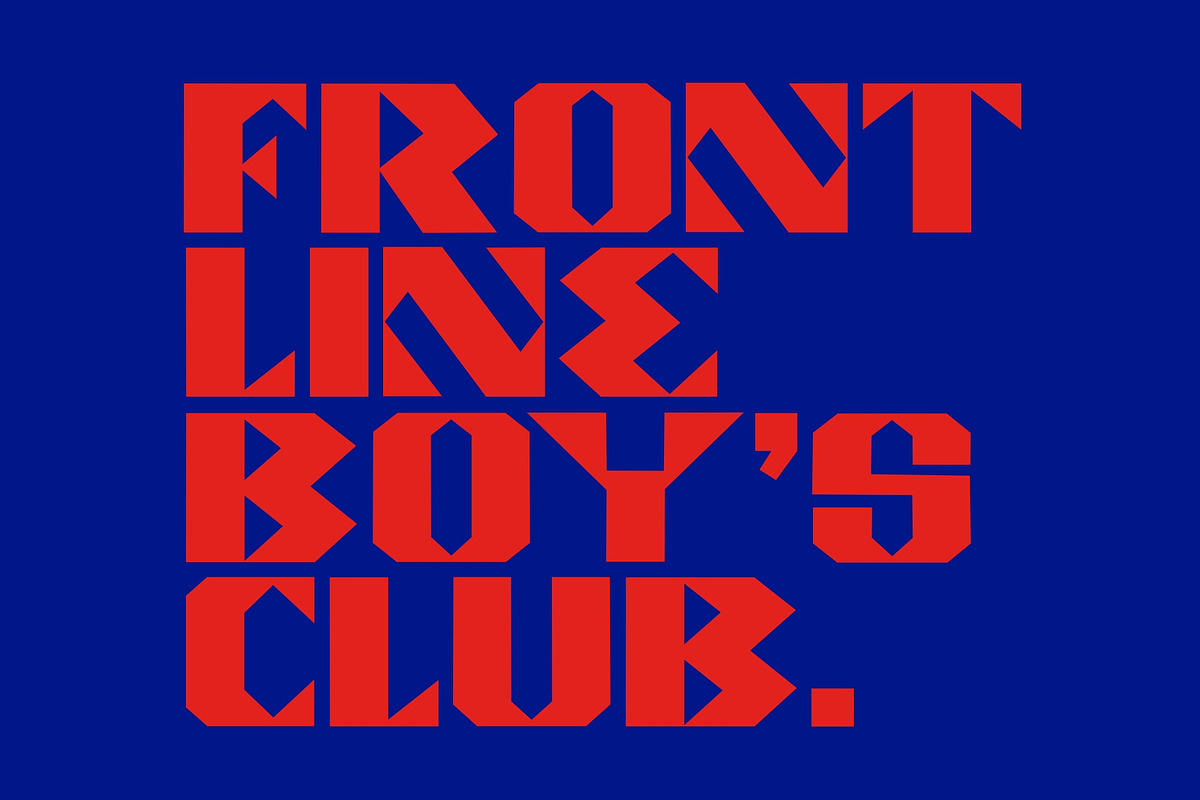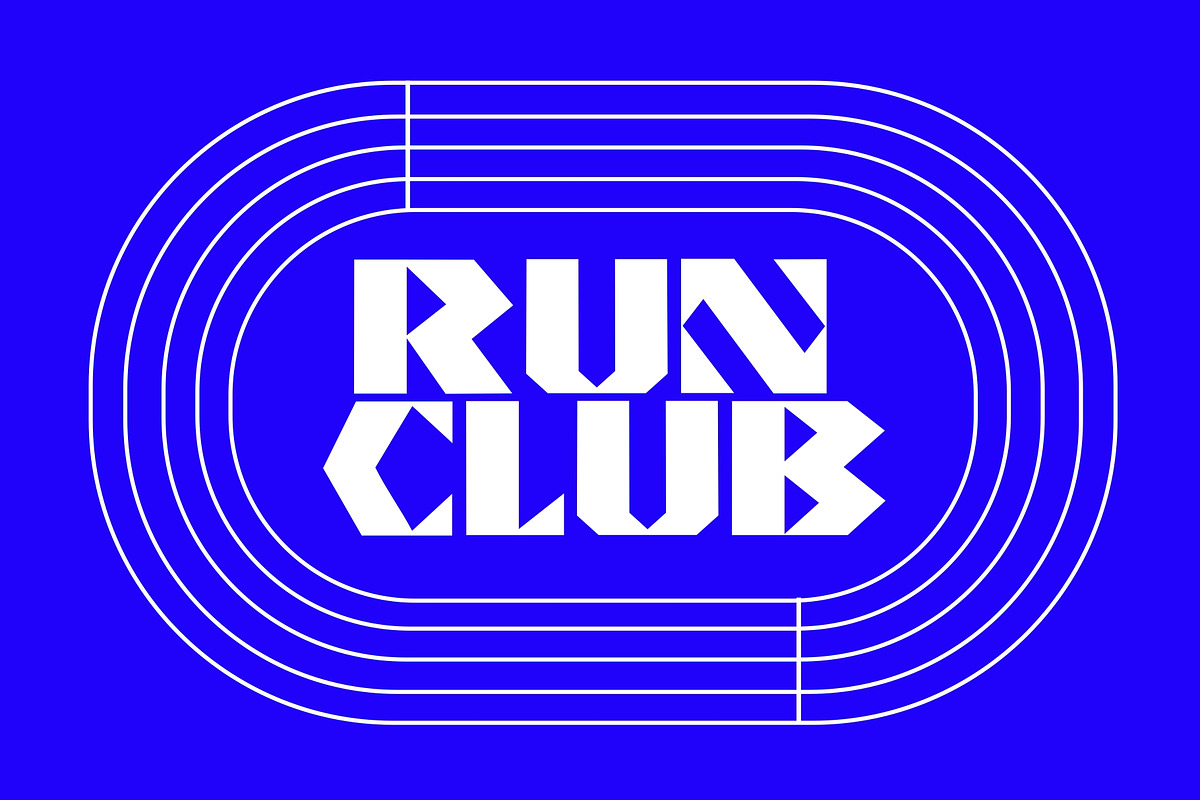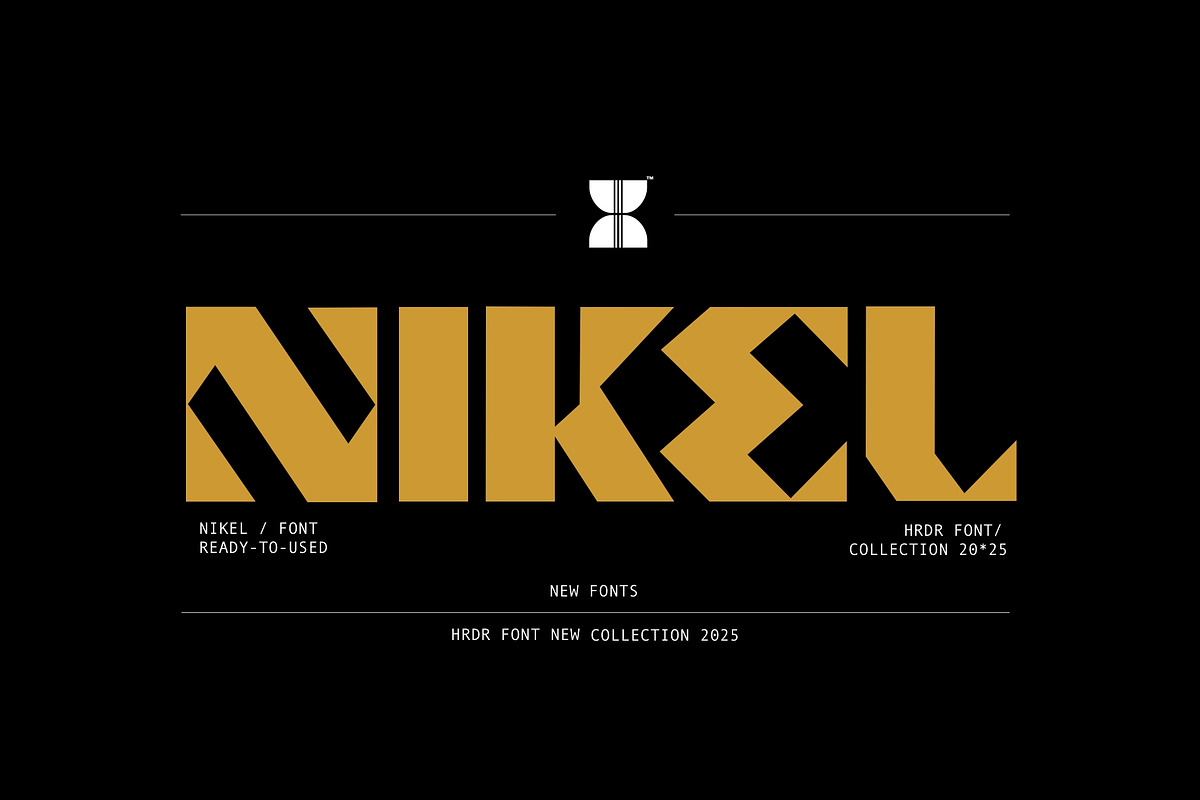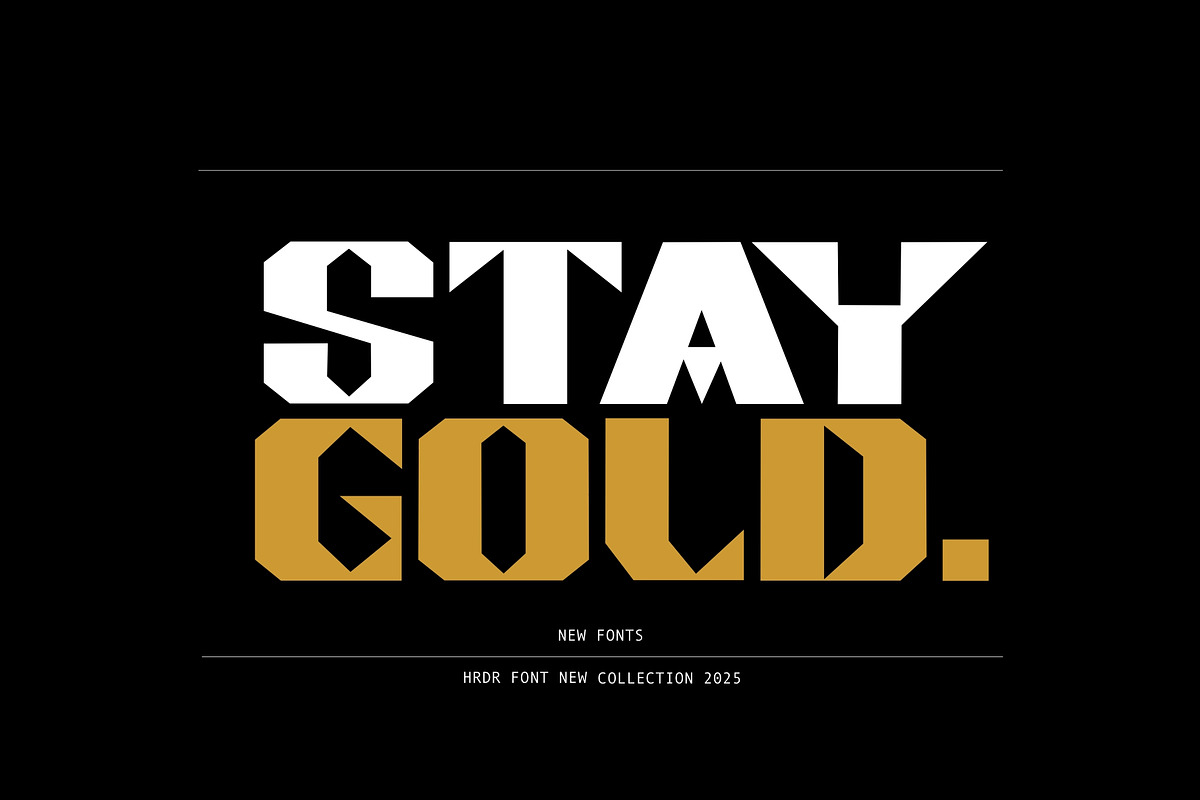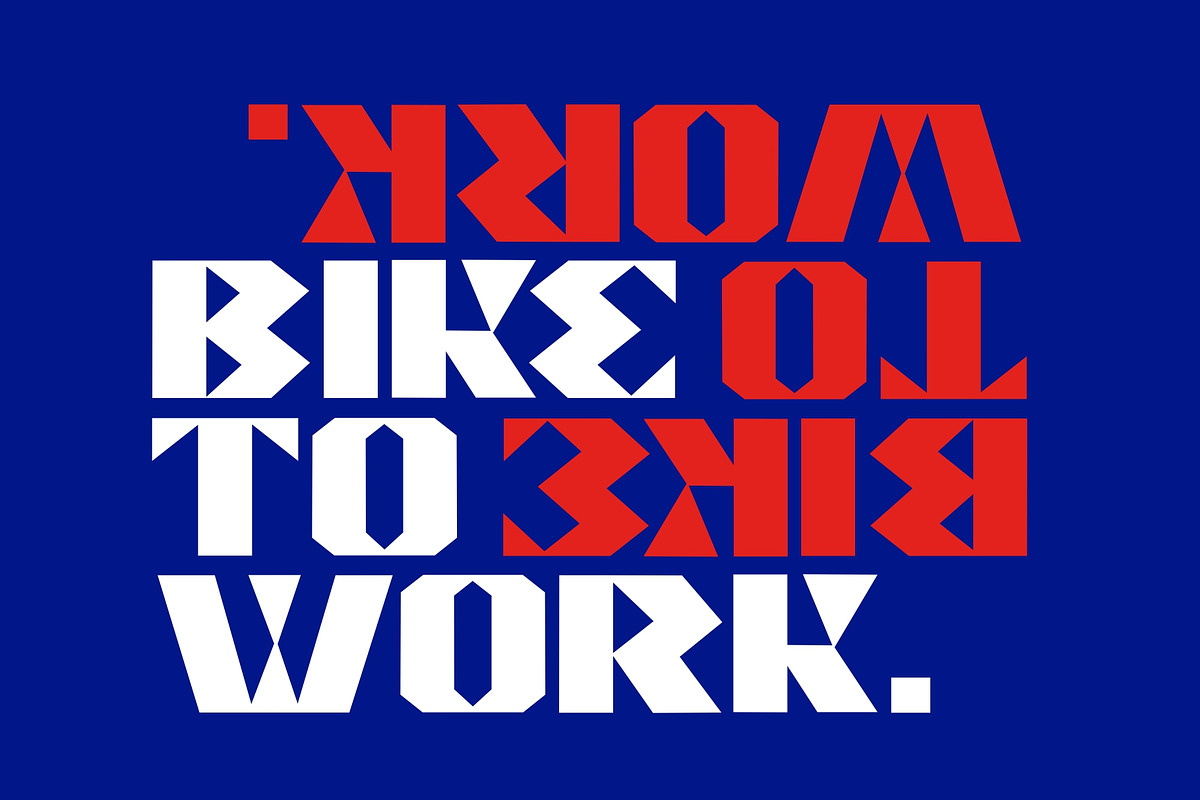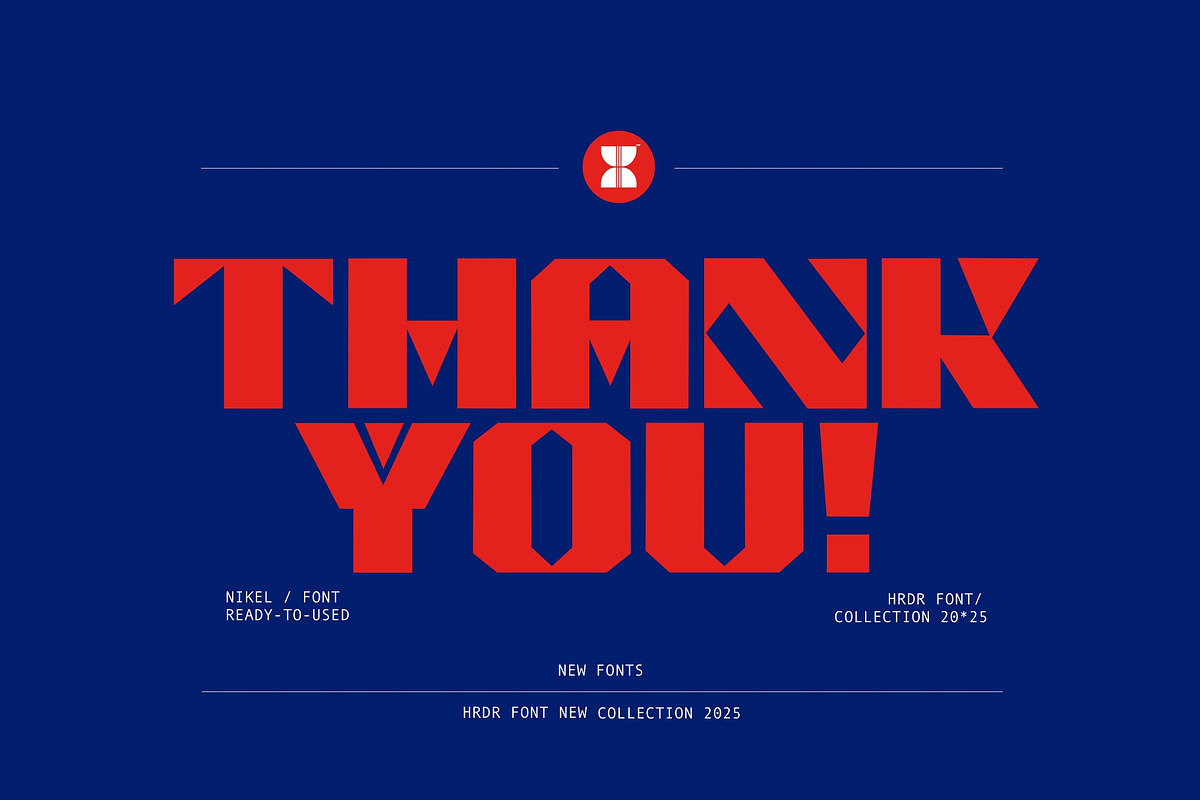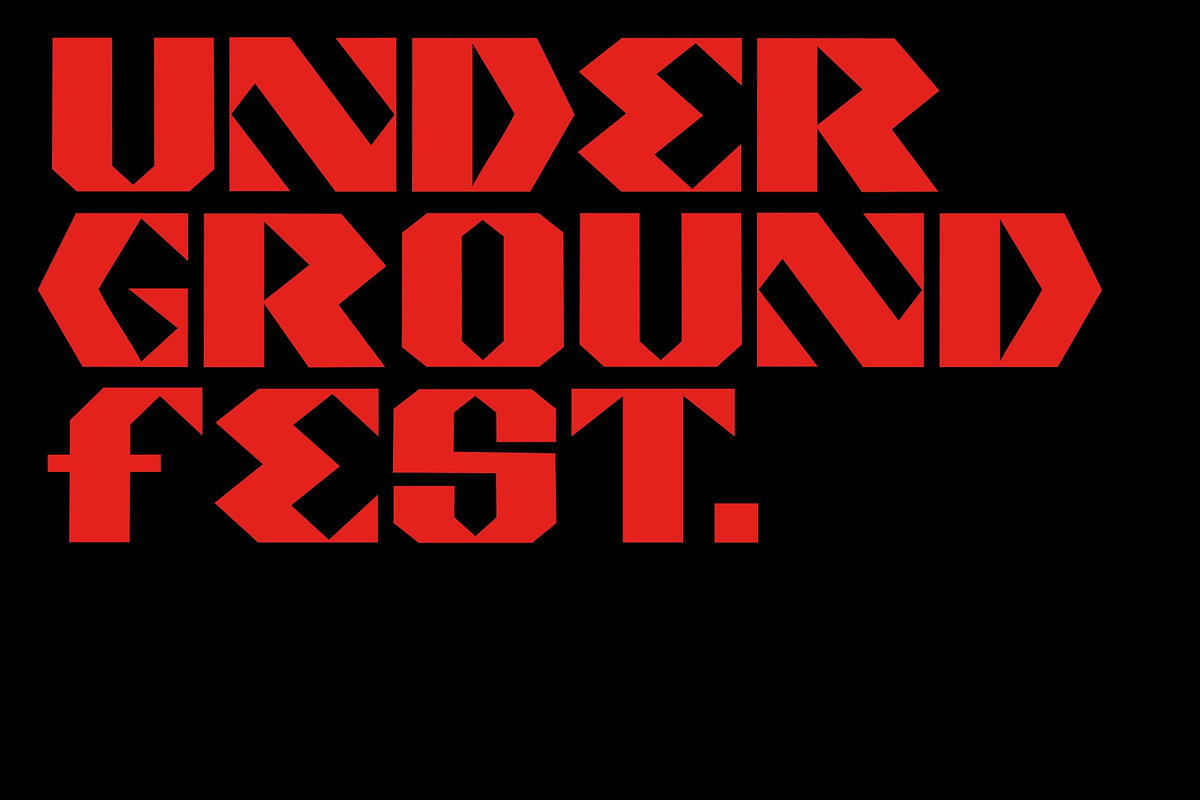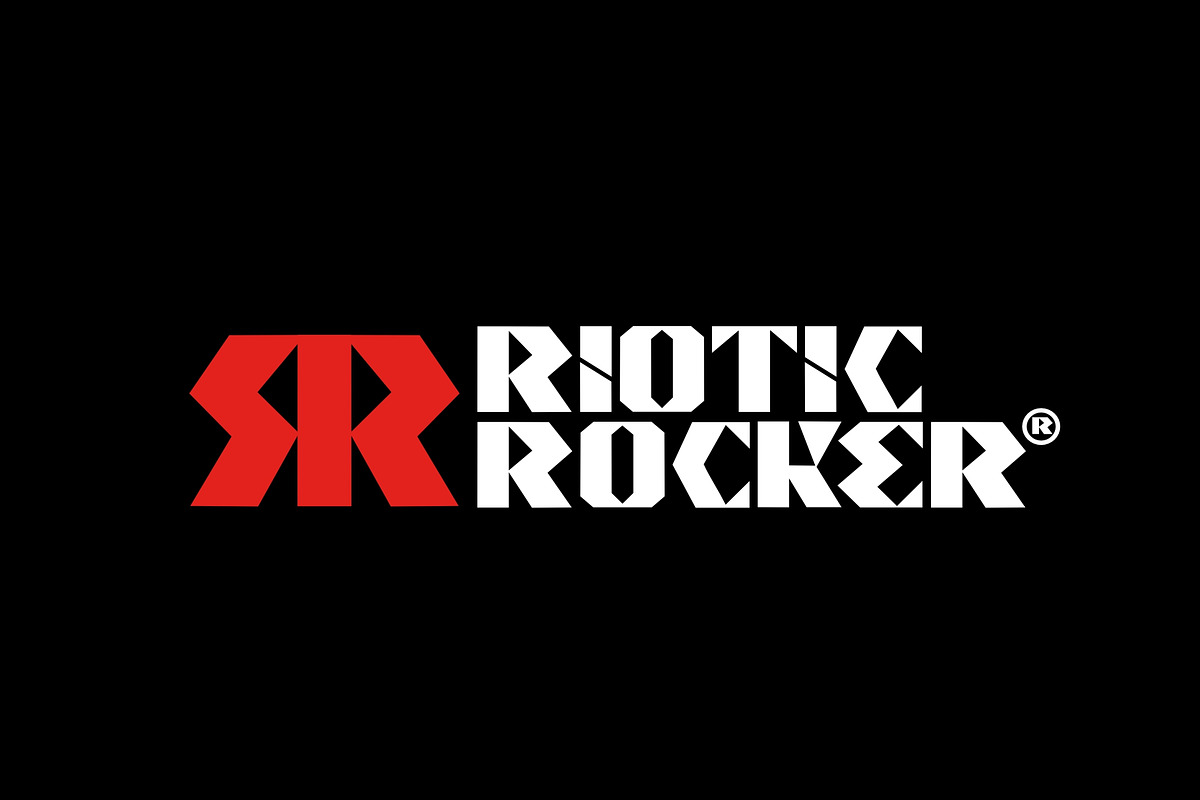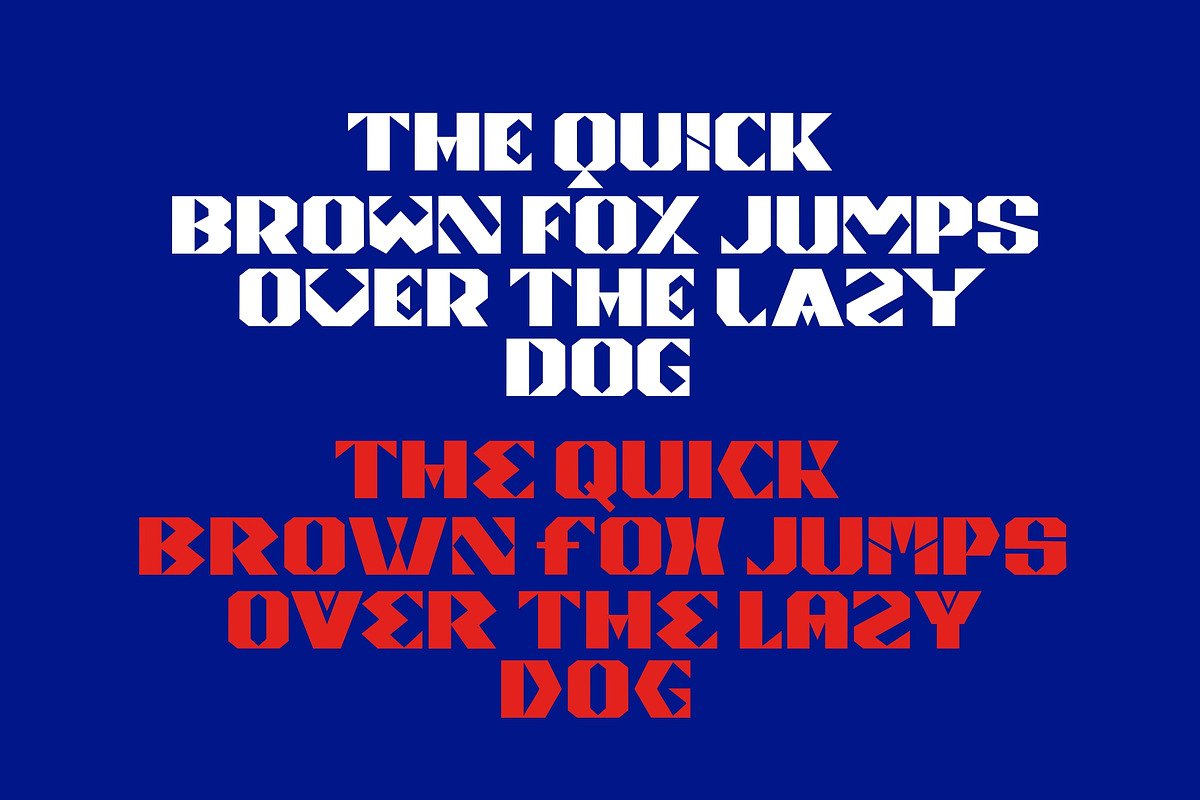
Nikel
Say hello to Nikel ! Nikel is a decorative font meant for Logo & branding, The characters geometric forms – this is what makes these fonts look so special, It's great for headlines and titles. perfect for crafting, branding, invitation, stationery, wedding designs, social media posts, advertisements, product packaging, product designs, label, Posters, photography, special events, or anything.
- numeric & Multilingual support
- Stylistic Alternates with Ss01 & Ss02